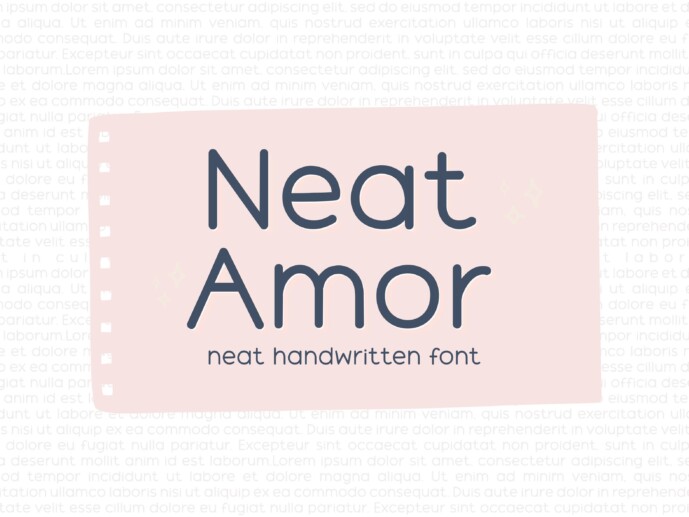
Neat Amor Font
Designer: EtjanDsgFonts
Introducing Neat Amor, an immaculately crafted, handwritten font that comes in three diverse styles – Light, Regular, and Bold. With Neat Amor, you can effortlessly breathe life into your digital planner or bullet journal, make your study notes stand out, enhance your blog posts or add a touch of class to your invitations and greeting cards.